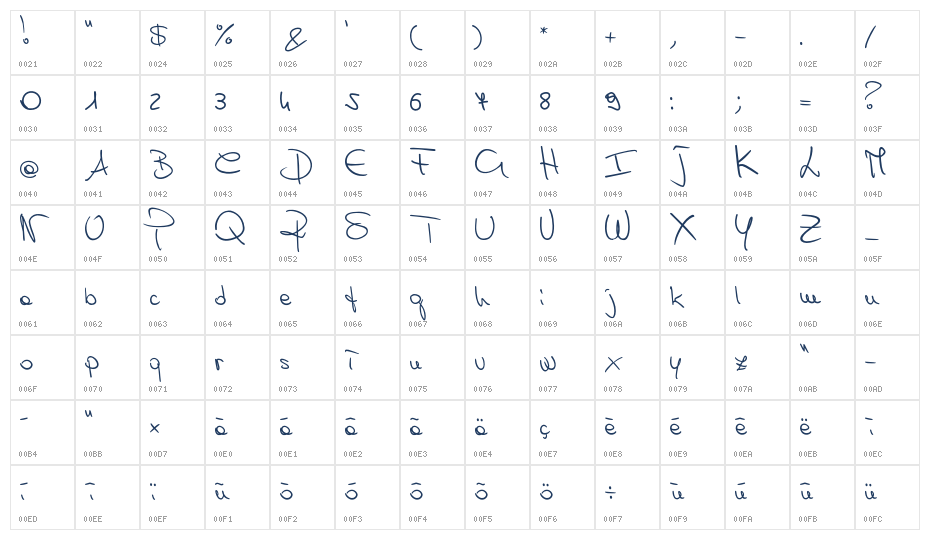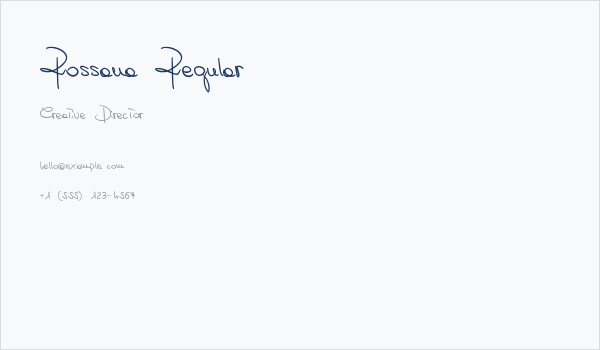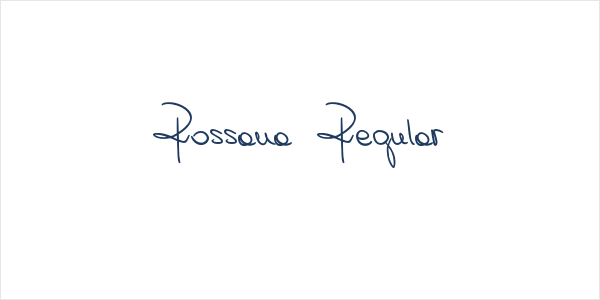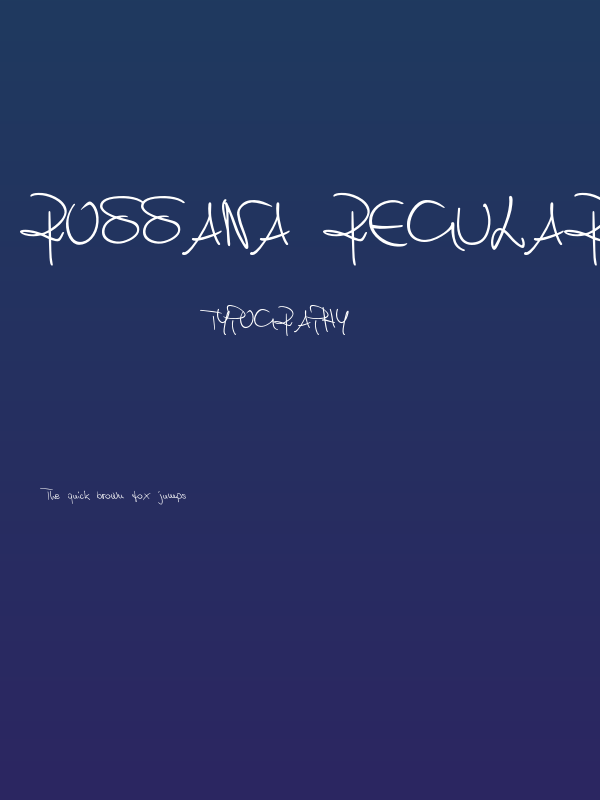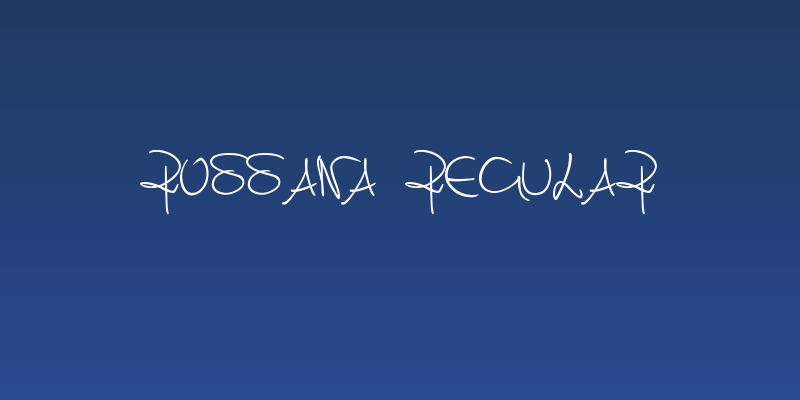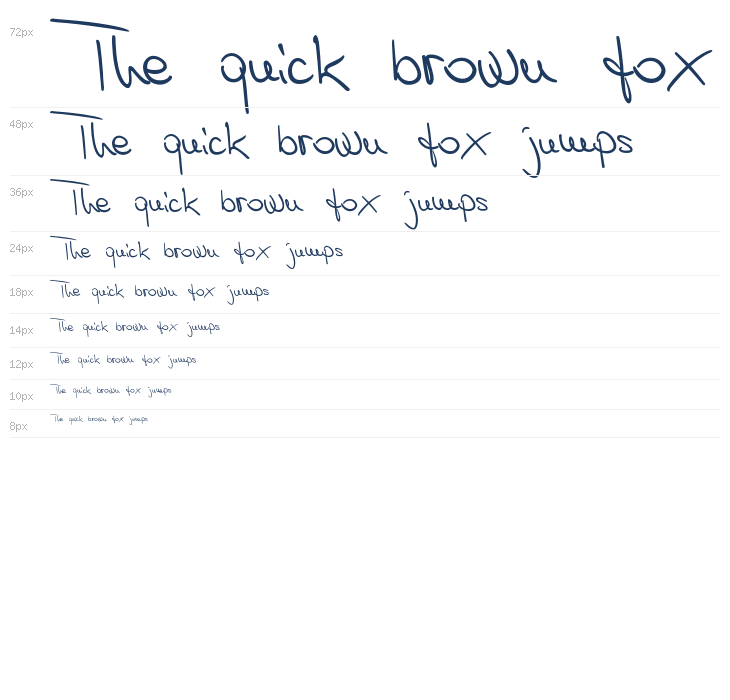
Rossana Regular Font
Rossana Regular Description
This font features a clean and modern aesthetic with a touch of elegance. The characters are well-balanced, offering a harmonious blend of curves and straight lines. The uppercase letters are slightly taller than average, giving a sense of authority and sophistication. The lowercase letters maintain a consistent style, ensuring readability and flow. Numbers are clear and distinct, making them suitable for various applications. Special characters are thoughtfully designed to match the overall style, adding versatility to the font. The overall appearance is sleek and professional, making it ideal for contemporary design projects.
Proposed ProjectsIdeal for branding, editorial design, websites, and corporate materials.